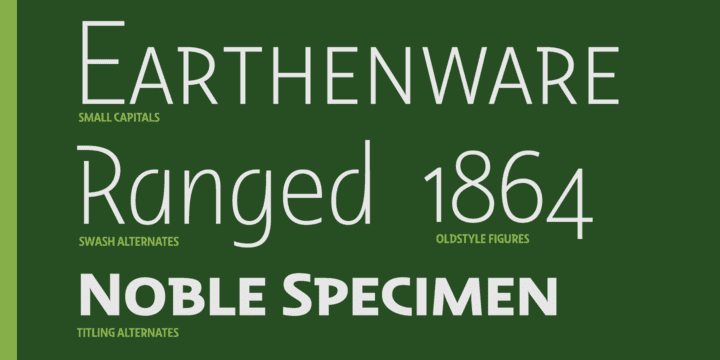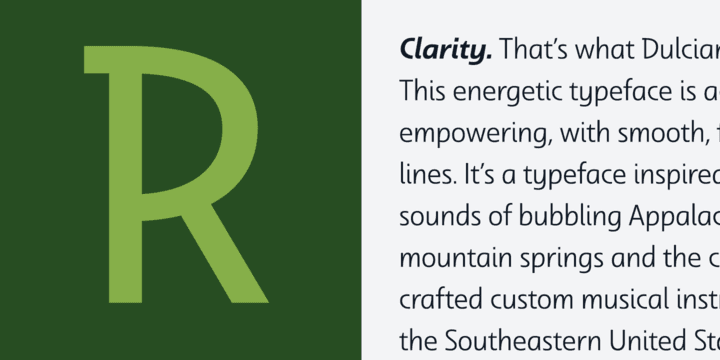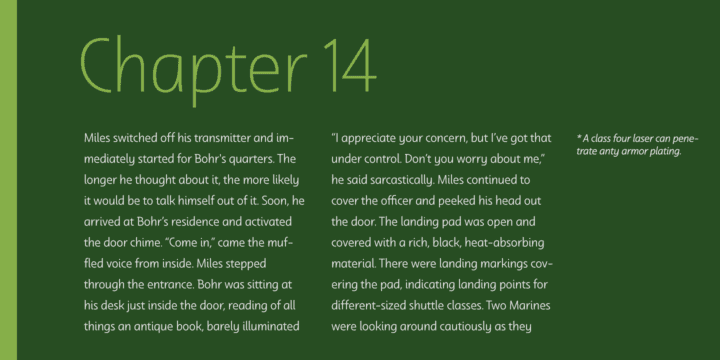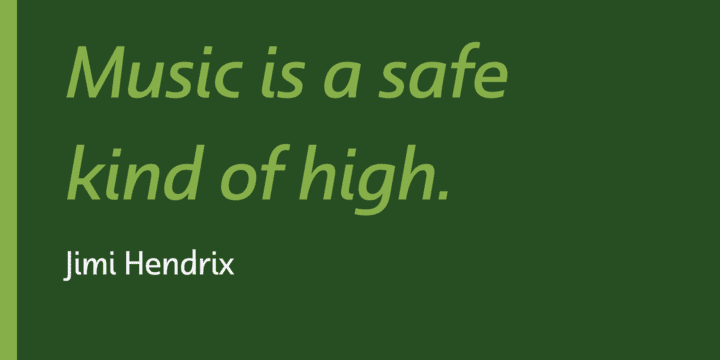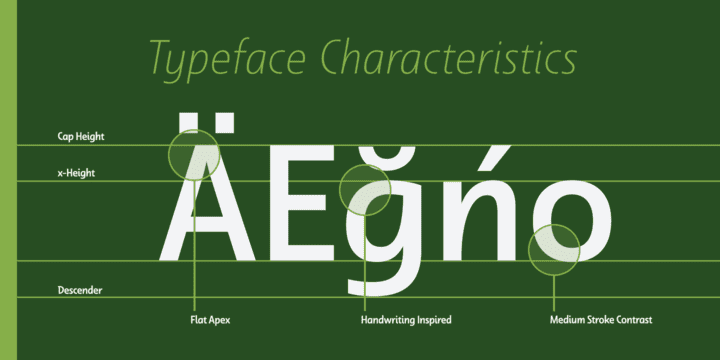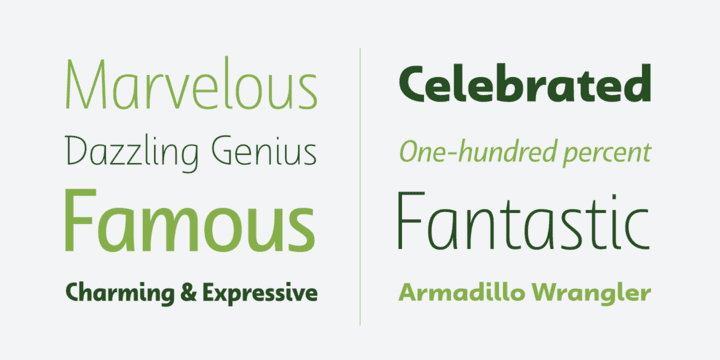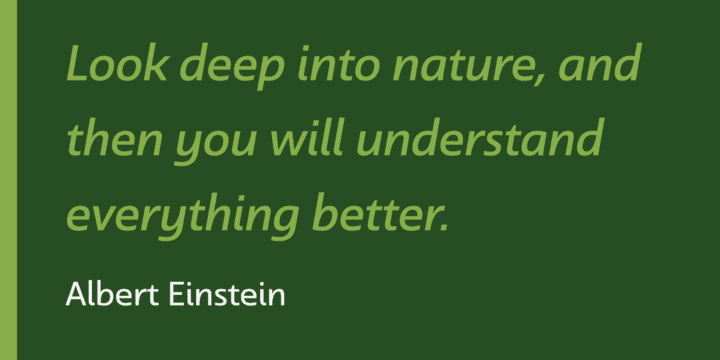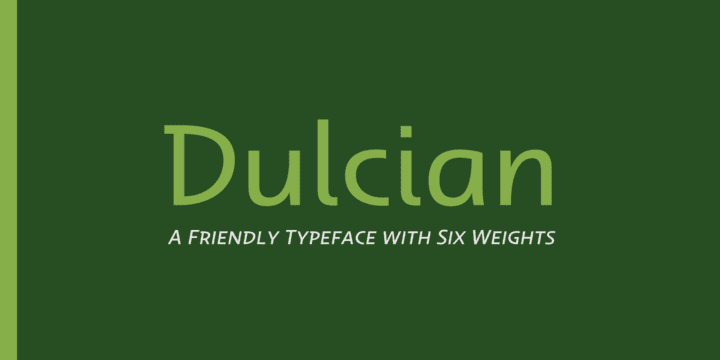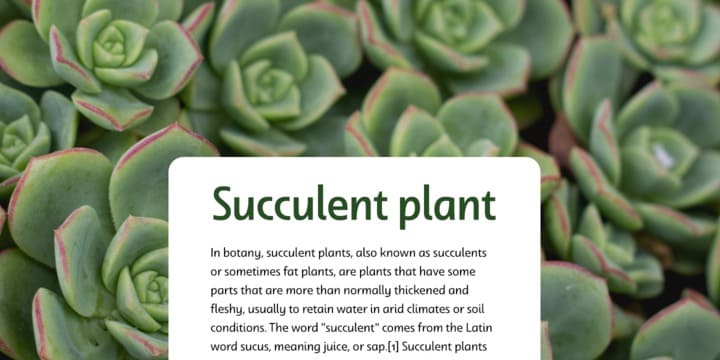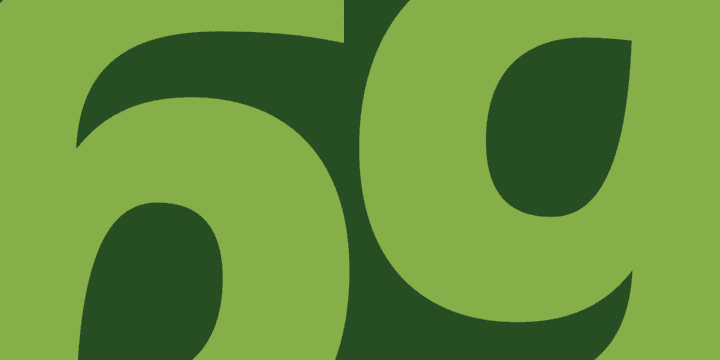
Dulcian supports OpenType features and is packaged with unicase alternates, unconnected alternates, ligatures, old-fashioned figures, fractions, titling and small caps. Preview any and all of these features in the interactive PDF manual. The Dulcian family of fonts also includes glyphs for 72 languages, providing you with more than 600 glyphs per font.
While designed especially for pull quotes, this display typeface can be used for a variety of applications. Dulcian is an excellent choice for websites as well as flyers and packaging. Other uses include coffee, menus, awards, certificates where a touch of humanity and personalization is needed.